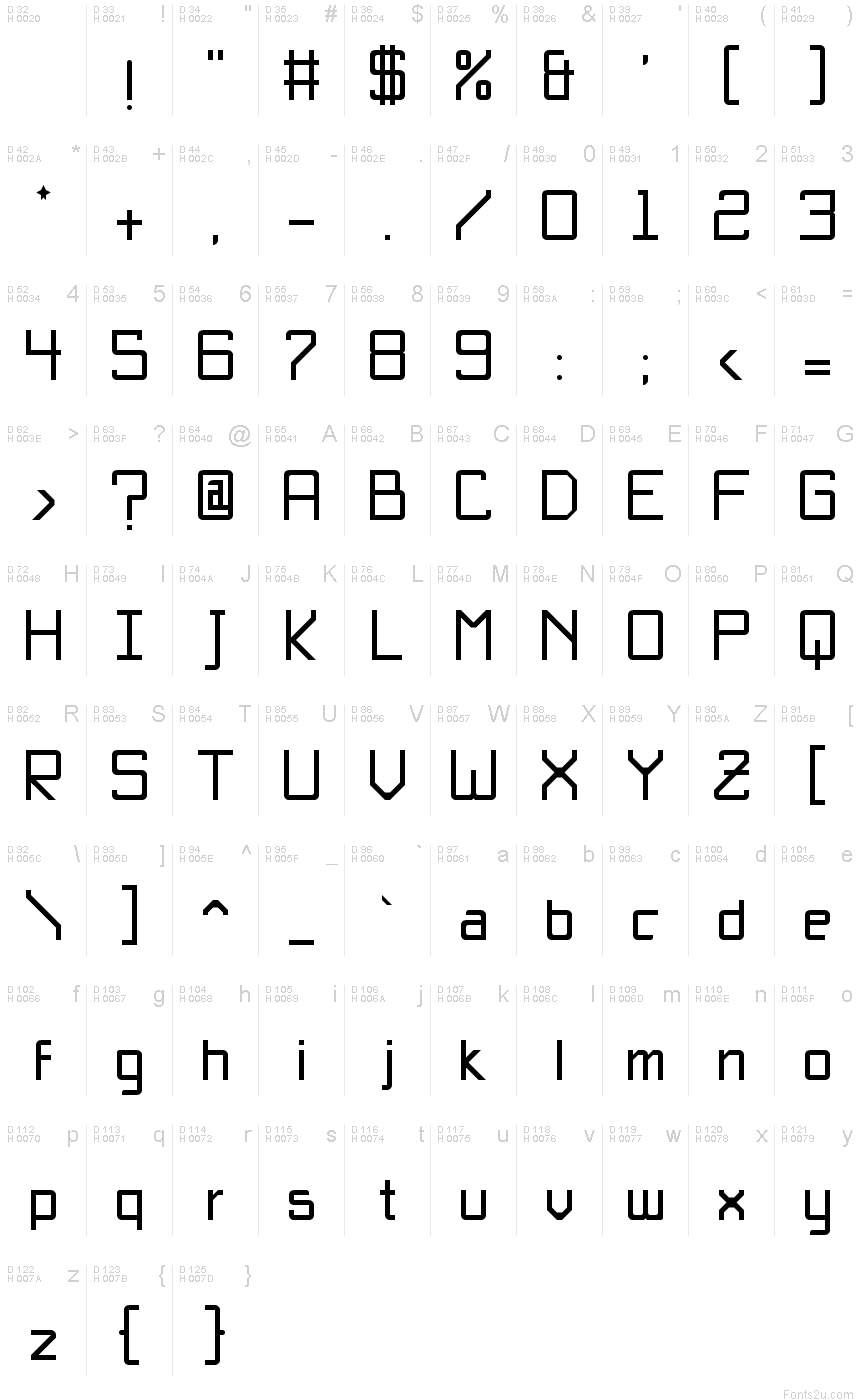
Básica by Juan Casco of FontShop International GmbH is a free techno display font built from clean, modular strokes. Its squared curves, open joins, and sharply cut gaps give the letters the look of an early digital interface, with generous widths and an even, mechanical pace.
Designers working in electronic music and retro-futurist entertainment will find it well suited to album covers, event posters, and game graphics. The segmented construction can also turn a logo into something resembling a control-panel label or machine marking. It speaks most directly to audiences drawn to arcade hardware, synthesizers, and industrial technology.